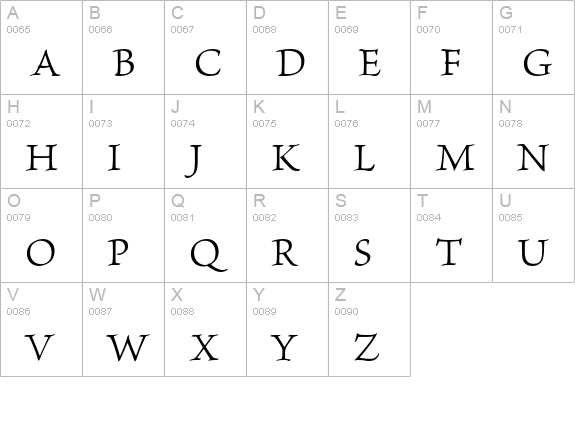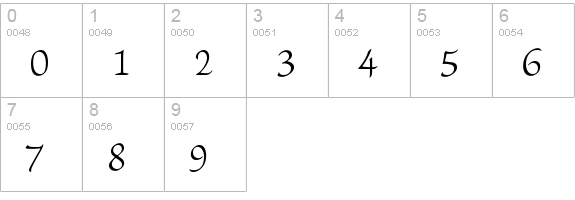
Brioso Pro Light Caption is a refined, elegant variant in the Brioso typeface family \xE2\x80\x94 well suited to elegant body text, refined sub-headings, and luxury branding.
Brioso Pro Light Caption is a sophisticated and elegant typeface that exudes a sense of refinement and grace. With its delicate serifs and clean lines, this font is perfect for adding a touch of sophistication to any project. The light weight of the font gives it a subtle and airy quality, making it ideal for captions, headlines, and other display purposes. One of the best things about Brioso Pro Light Caption is that it is available for free download at FontsMarket.com. This means that you can easily access this beautiful font and use it in your projects without any cost. Whether you are designing a website, creating a poster, or crafting a brochure, Brioso Pro Light Caption is sure to add a touch of elegance and style to your work. Download it now and elevate your designs with this stunning typeface.